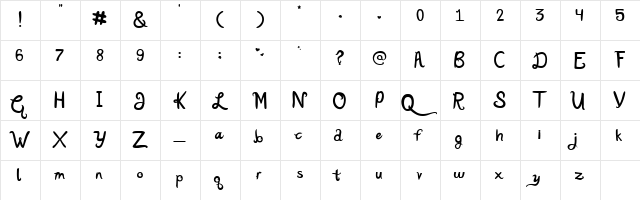
Katy Berry Regular
Design Context for Katy Berry Typeface
Katy Berry is a composed and adaptable typeface that performs quietly and consistently across a wide range of design contexts.
Pro Tip: Pair Katy Berry with a font of contrasting weight or personality to build a more expressive typographic hierarchy.